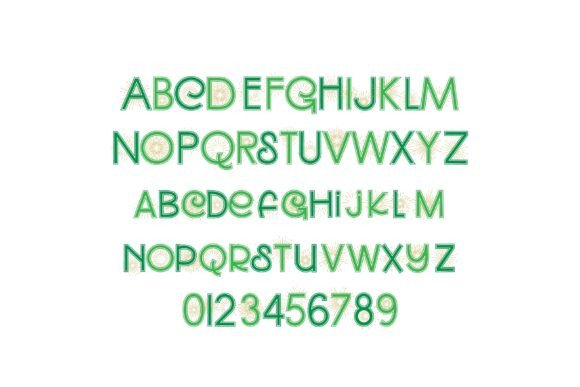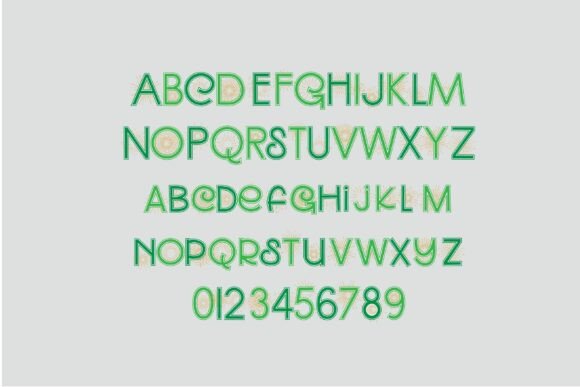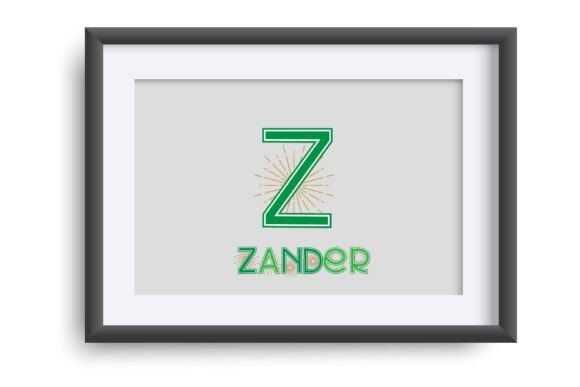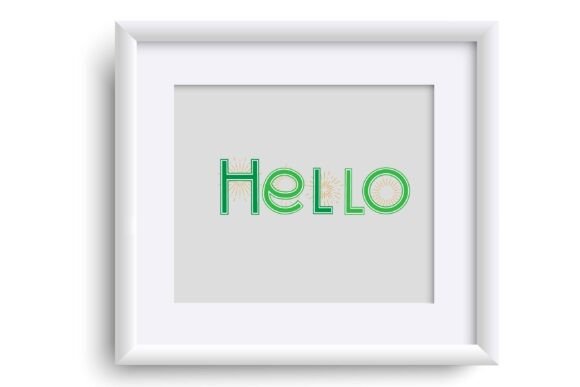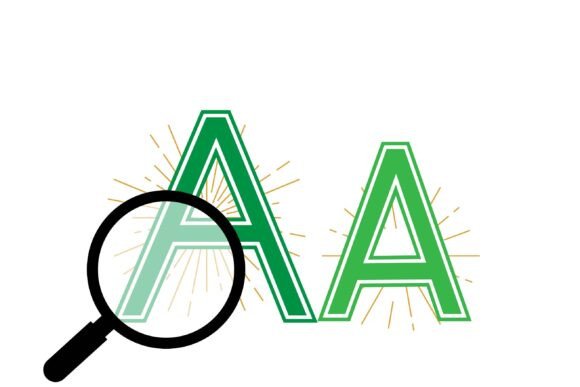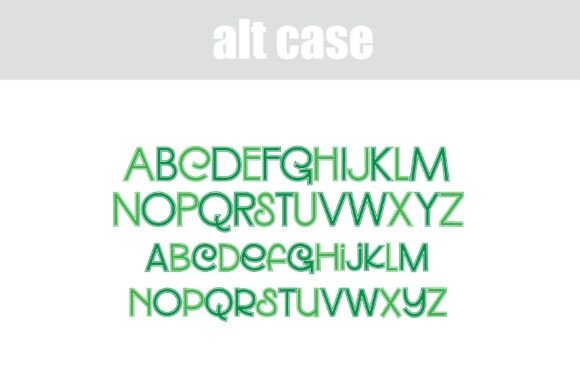
Celebrate the Magic of Color Fonts
Have you ever felt like a kid on Christmas morning, rummaging through a box of colorful markers and waiting for the perfect moment to unleash your creativity? For designers, that moment comes when we discover a new font that sparks joy and sets our projects ablaze. That’s exactly what happens when we stumble upon the Celebrate Green Font, a vibrant, full-color sans serif font that’s bursting with celebratory starbursts.
Designed to make a statement, Celebrate Green Font is perfect for titles, displays, posters, and any project that needs a little extra oomph. Its unique design and color options make it a valuable addition to any designer’s toolkit, and its compatibility with Silhouette Studio ensures seamless integration into your workflow.
Celebrate Green Font Key Features
- Font Family: Celebrate Green is a sans-serif font family designed to evoke a sense of celebration and joy.
- Character Set: The font family includes a wide range of characters, including Latin, Cyrillic, and Greek alphabets, as well as punctuation and symbols.
- Unique Characteristics: Celebrate Green features a unique, energetic feel with rounded edges and a subtle gradient effect, making it perfect for use in promotional materials, party invitations, and other celebratory designs.
Celebrate Green Font Review
Overall, I’d say Celebrate Green Font is a solid choice for designers looking for a fun and energetic font. Here’s what I like about it: ✨ It’s perfect for adding a pop of color to your designs, ✨ The font is highly customizable, allowing you to adjust the size, color, and style to fit your needs, and ✨ The font is compatible with most operating systems and devices.
However, there are a few limitations to keep in mind: ⚠️ The font may not be suitable for professional or formal designs, as it’s more geared towards casual or playful content, ⚠️ The font can be a bit overwhelming if used in large quantities, and ⚠️ The font may not render well in certain font sizes or styles.
Here are some specific design considerations to keep in mind:
- Use Celebrate Green Font sparingly to avoid overwhelming the viewer.
- Pair Celebrate Green Font with a clean and simple background to let the font shine.
- Experiment with different font sizes and styles to find the perfect balance for your design.
Overall, I’d recommend Celebrate Green Font for designers looking for a fun and playful font option. While it may have some limitations, it’s a great choice for casual or creative designs.
The Celebrate Green Font is ideal for:
- Creating festive and celebratory designs.
- Adding a pop of color to your designs.
- Highlighting important information or calls-to-action.
Remember to use the Celebrate Green Font consistently throughout your design to create a cohesive look and feel.
Alternatives to Celebrate Green Font for Designers
Playfair Display is an elegant and luxurious serif font, ideal for creating a high-end look and feel. It’s perfect for use in branding, advertising, and packaging designs where a touch of sophistication is required. Compared to Celebrate Green Font, Playfair Display has a more refined and traditional aesthetic, making it a better choice for formal or high-end designs.
Great Vibes is a modern and playful sans-serif font, ideal for creating a fun and energetic atmosphere. It’s perfect for use in social media graphics, posters, and other designs where a youthful and lively vibe is required. Compared to Celebrate Green Font, Great Vibes has a more casual and laid-back feel, making it a better choice for informal or creative designs.